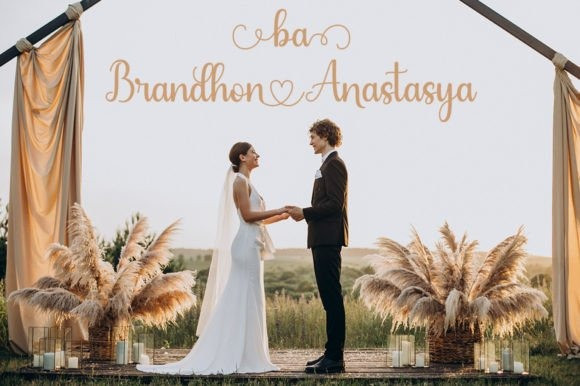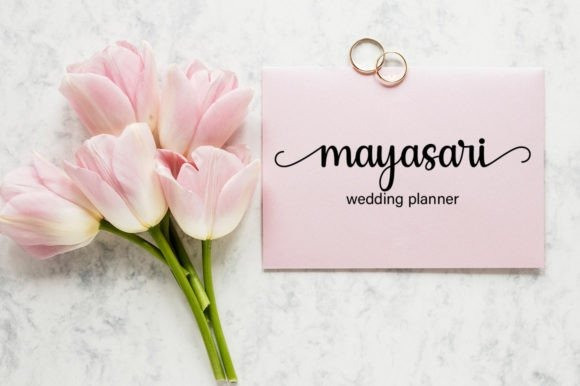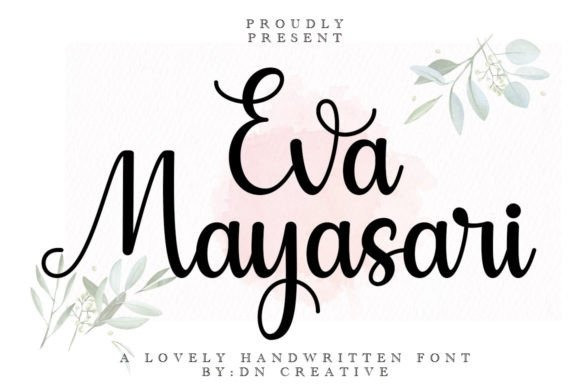
Eva Mayasari Font
Eva Mayasari Font is a delicate, elegant, and flowing handwritten font perfect for your favorite projects. Fall in love with its incredibly distinct and timeless style, and use it to create spectacular designs!